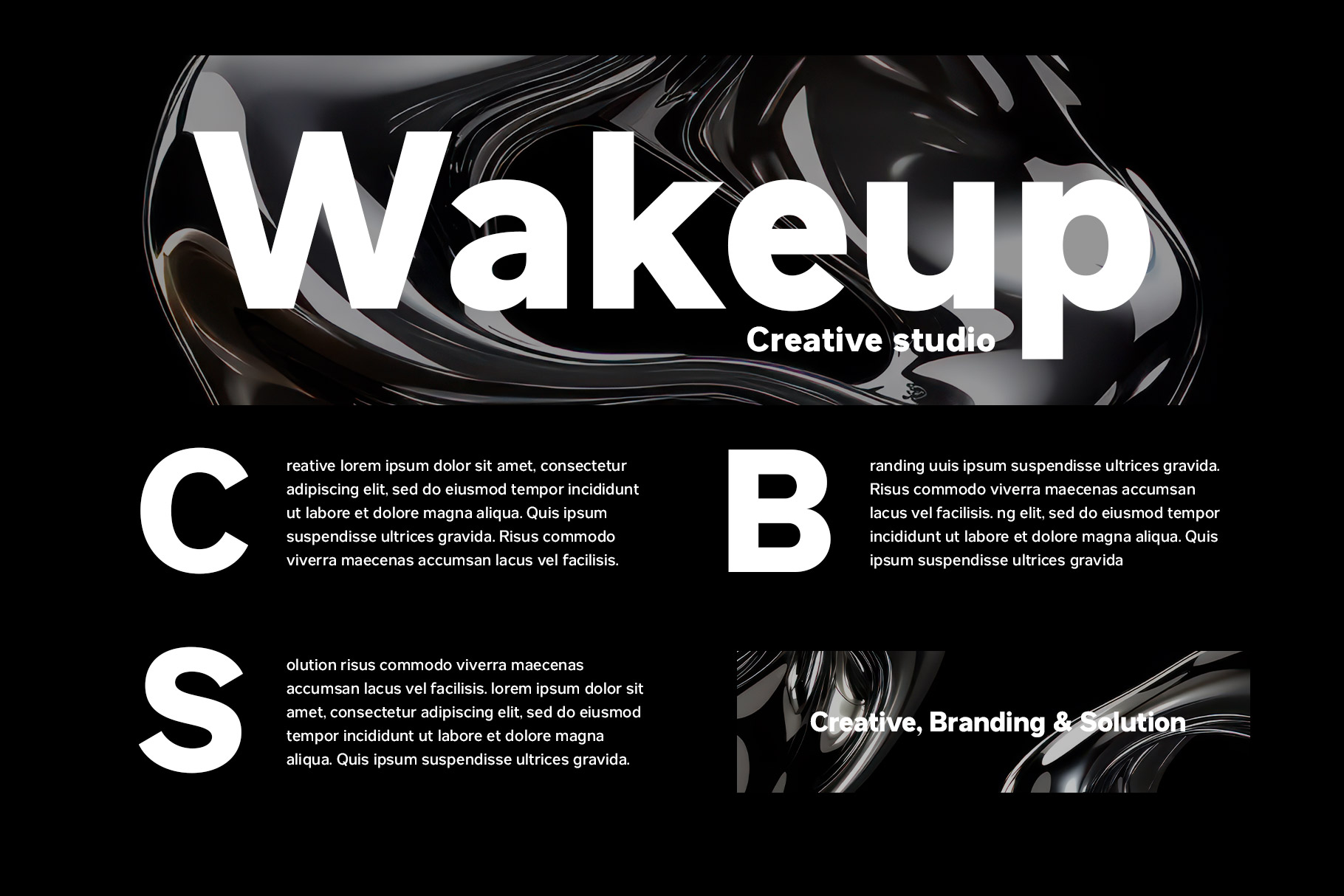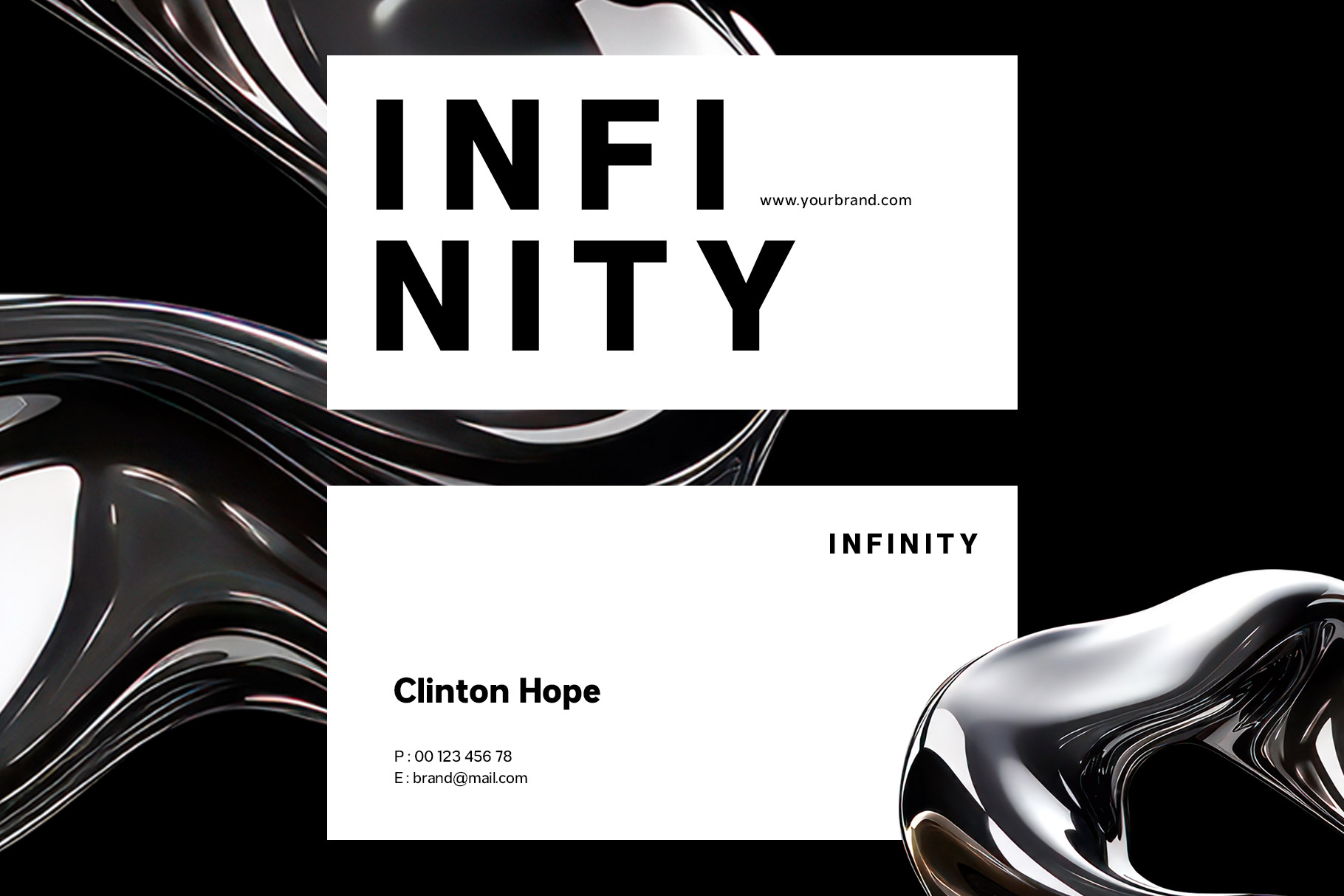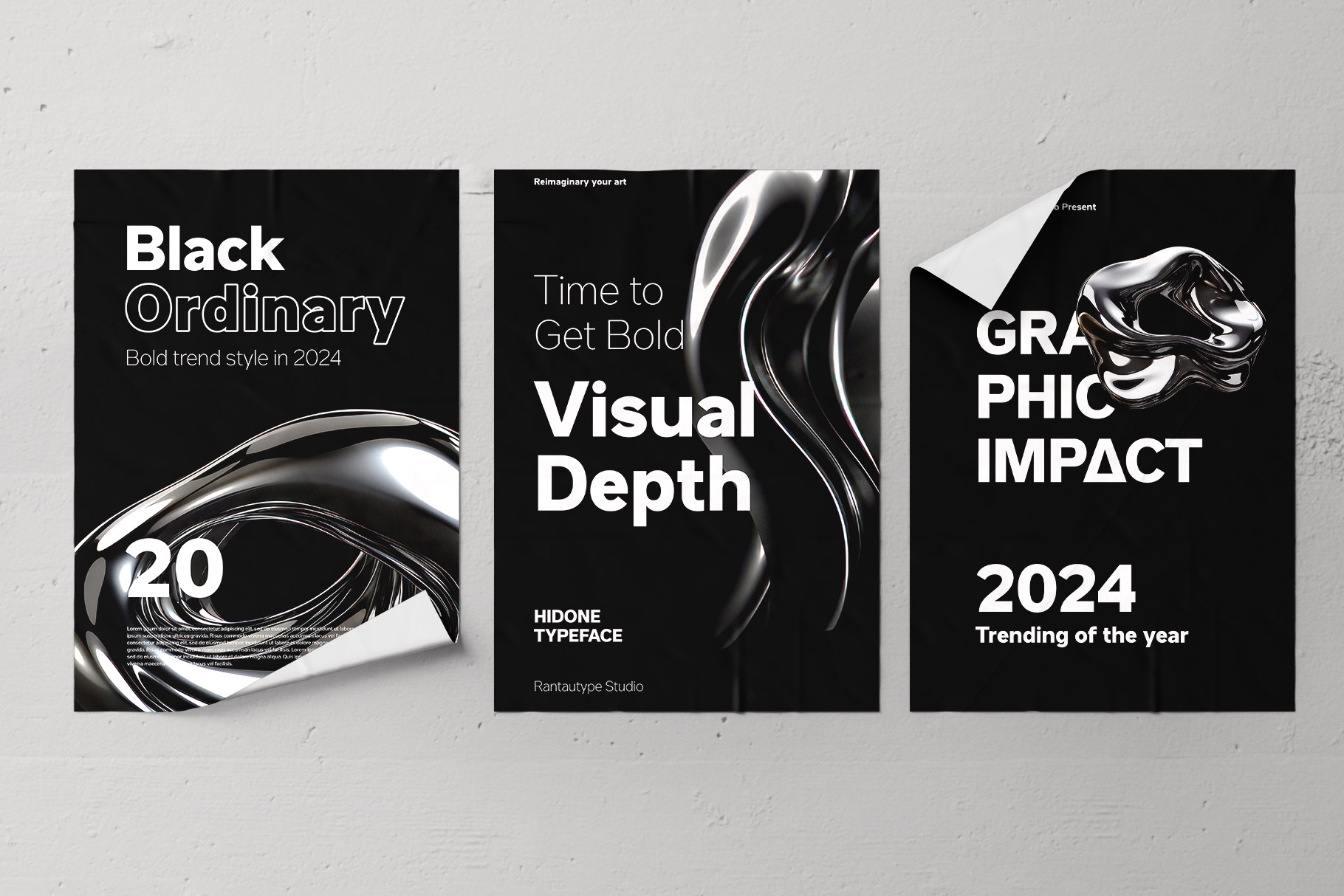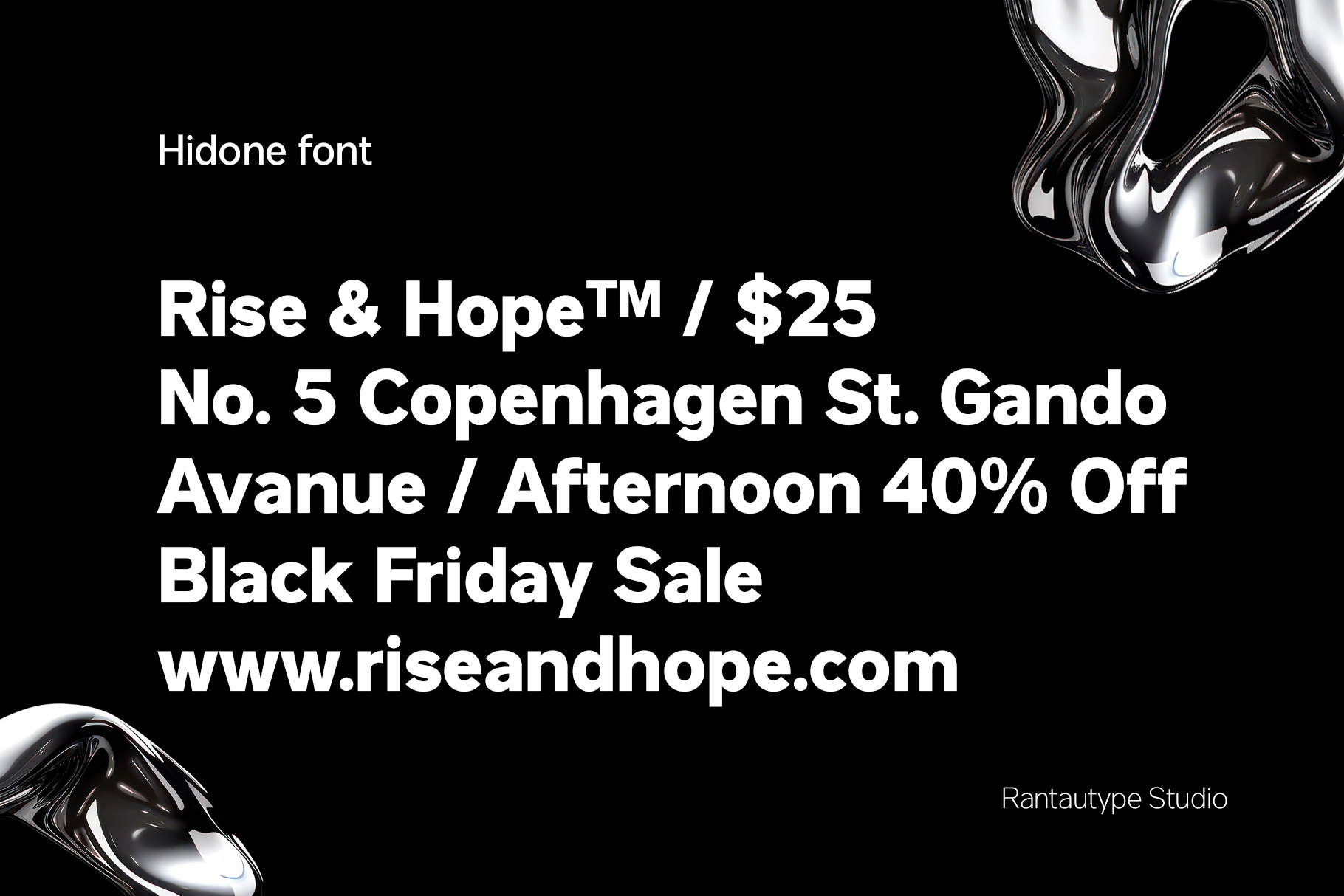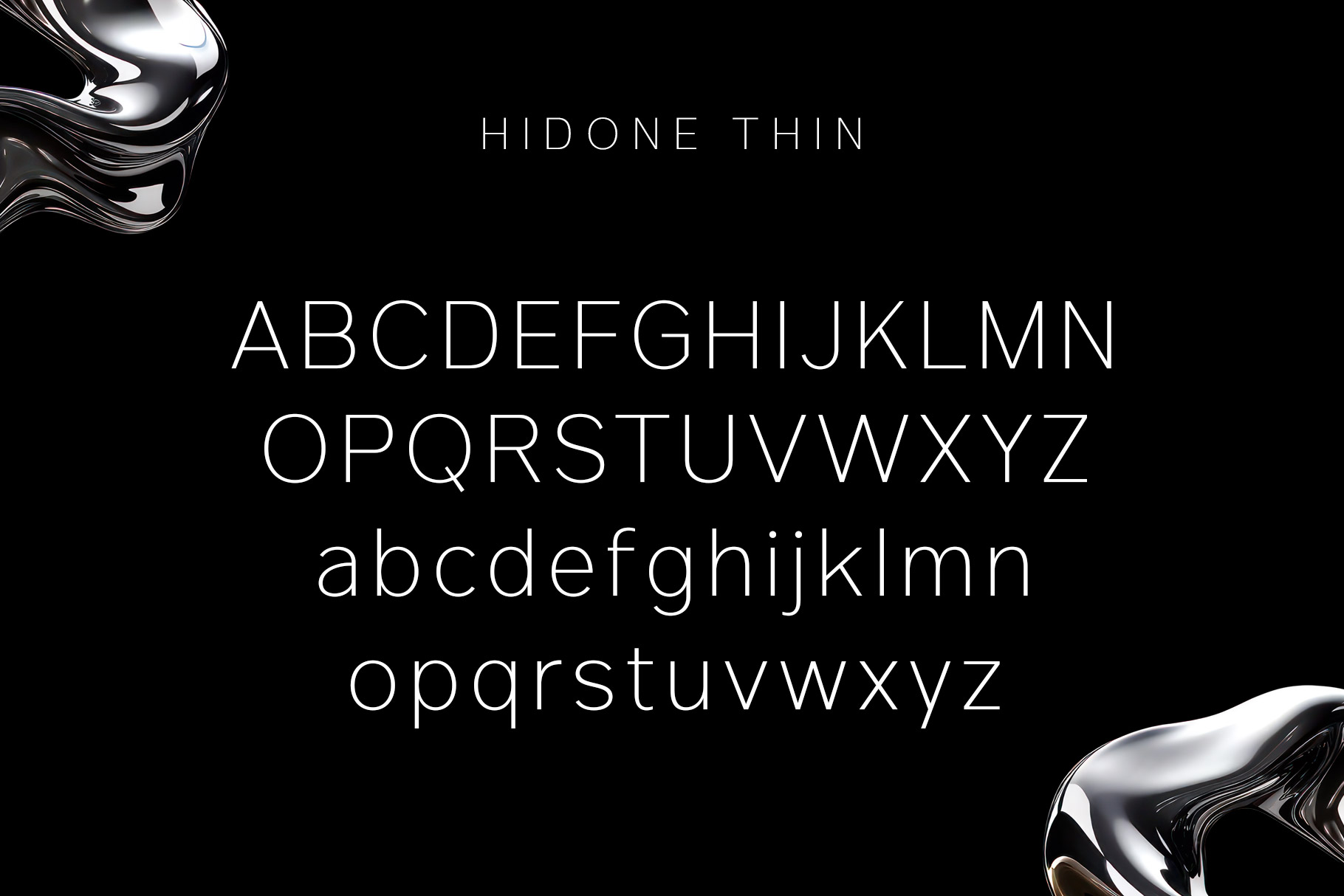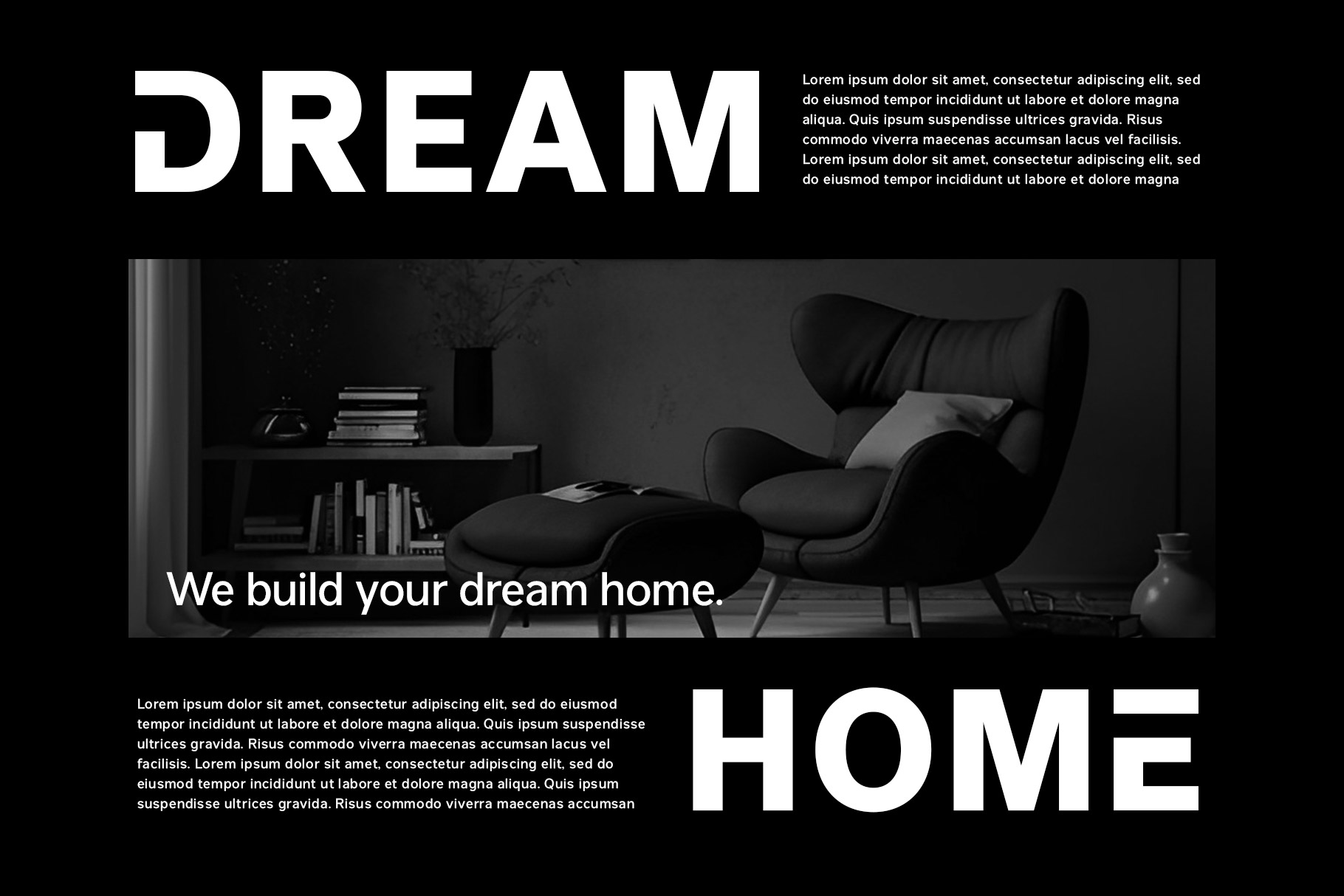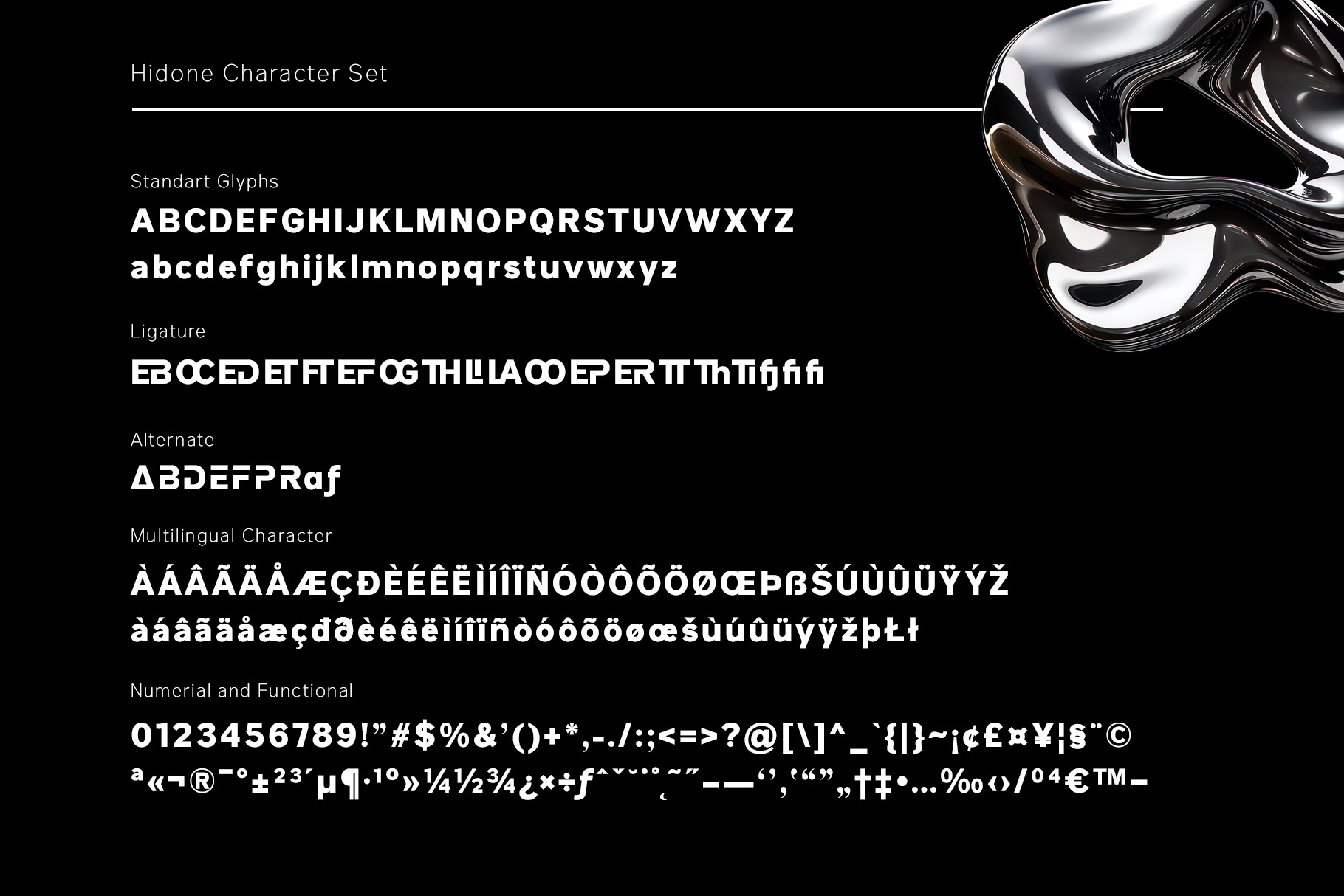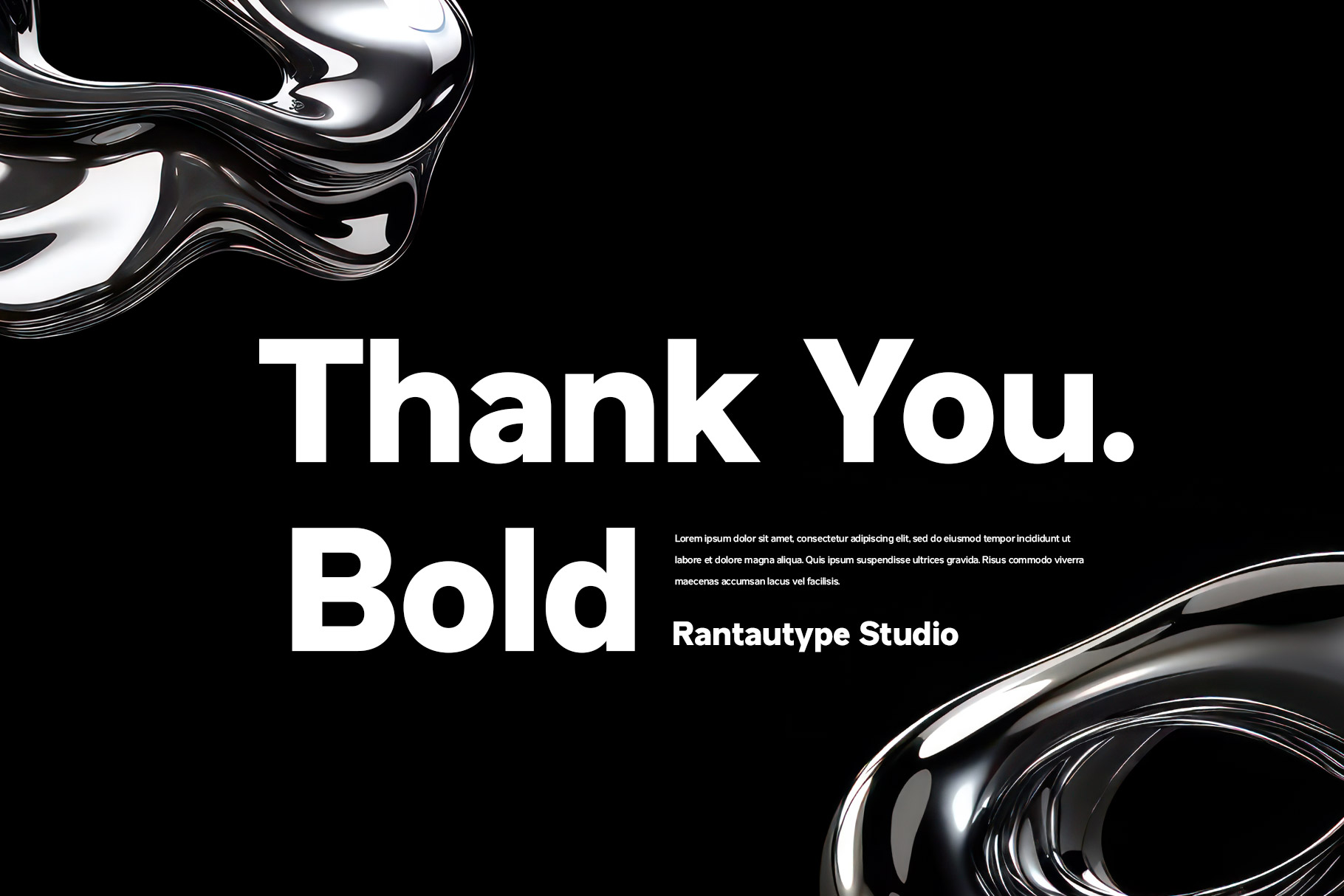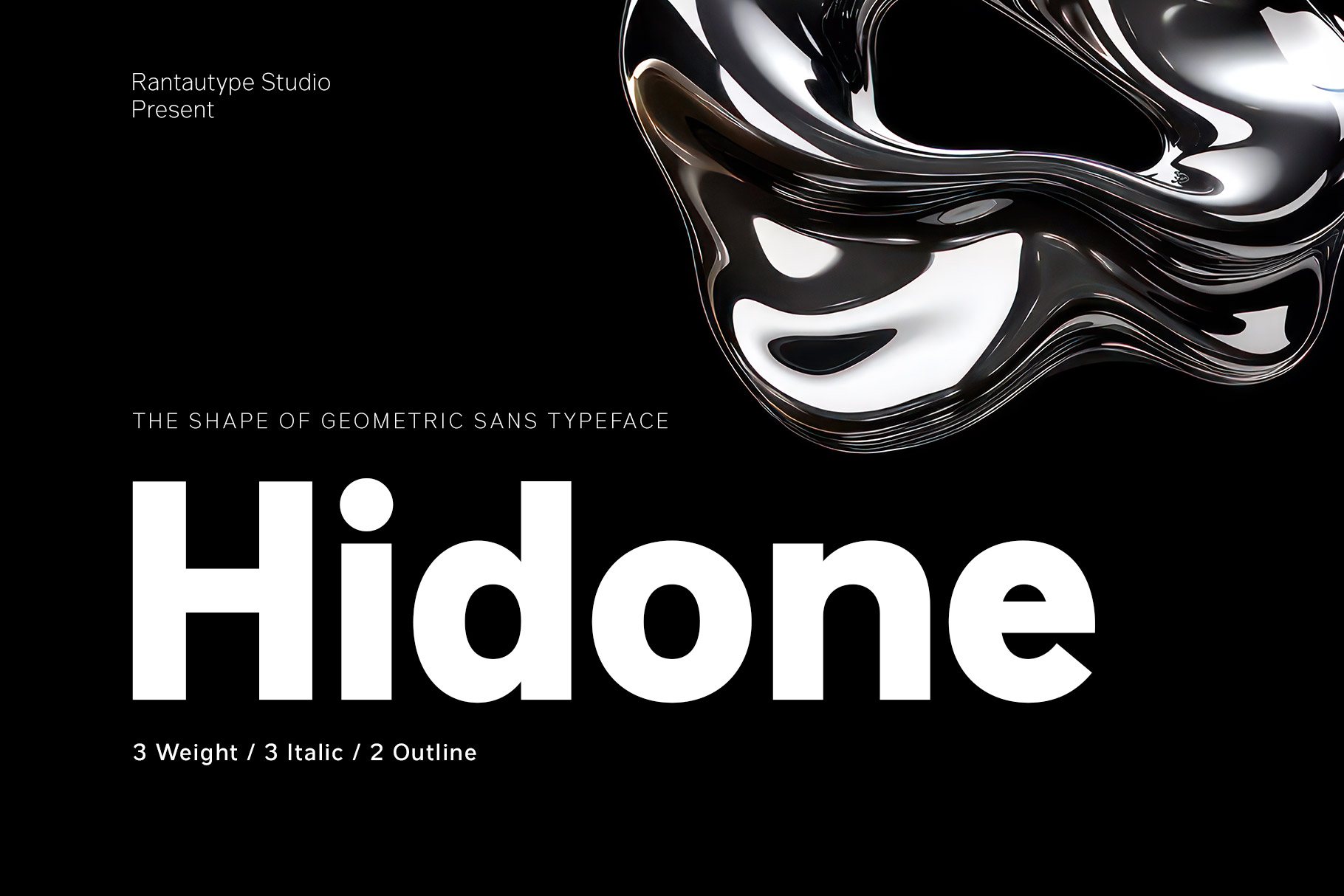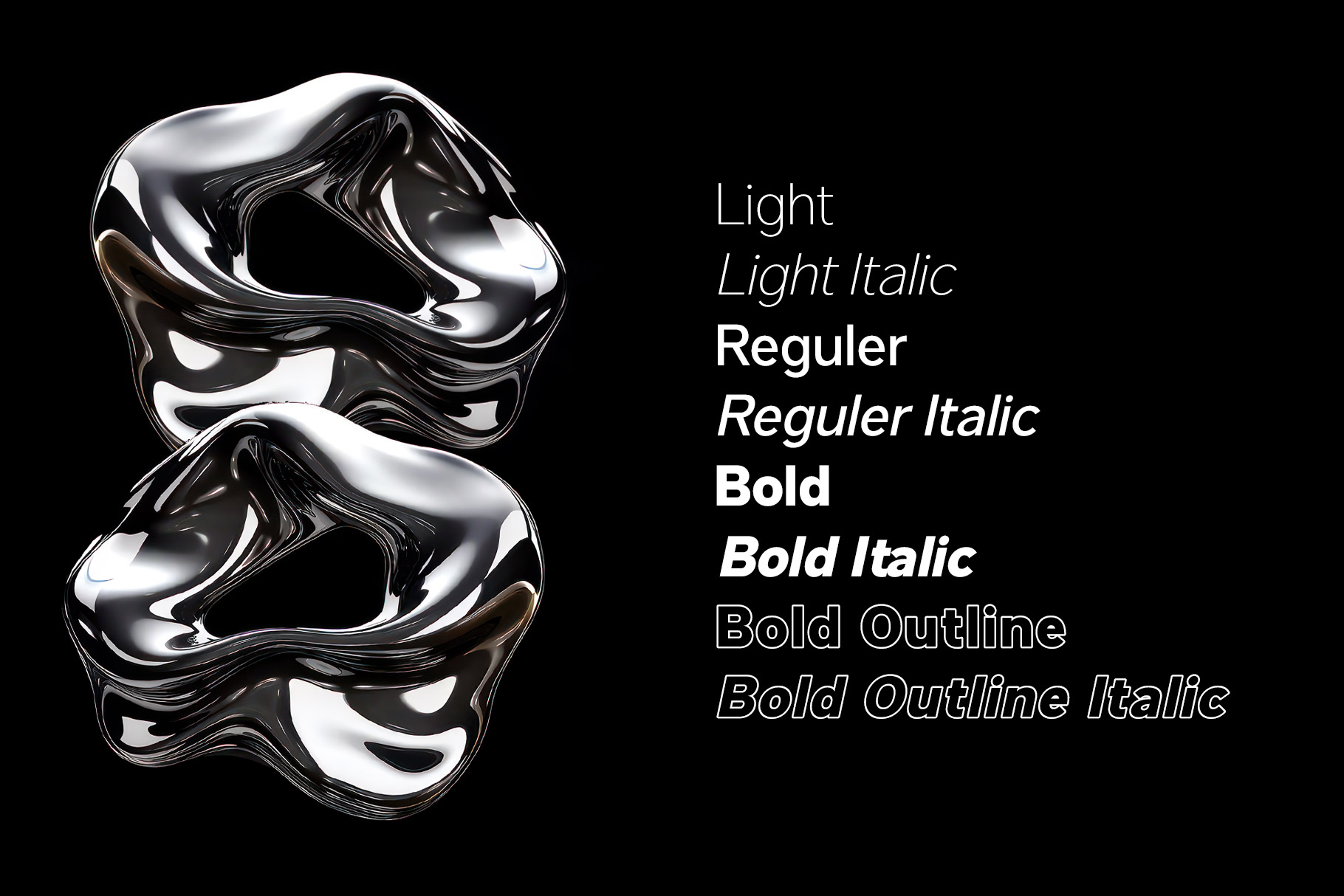
Hidone Sans Serif Font Family
Hidone is fresh minimalist and geometric san serif font family inspired by the iconic typeface futura and montserrat. Hidone come with 8 font style italic until bold outline italic style contrast as the neo grotesk font from 20th century. The typeface is versatile and perfectly to make design project.
Hidone is a perfectly choice for any creative endeavor, chic, lifestyle design such as logos, advertisements, watermark on photography, stationery, branding project, display and magazine, invitation, corporate brand, product design, label, business project and many other project with elegant touch.